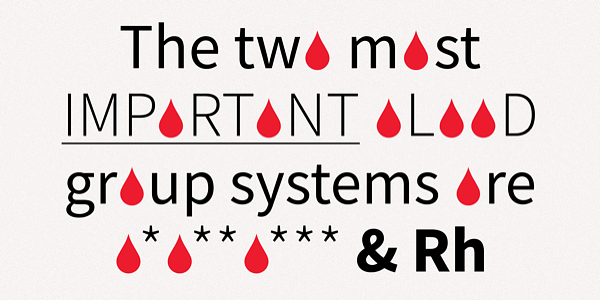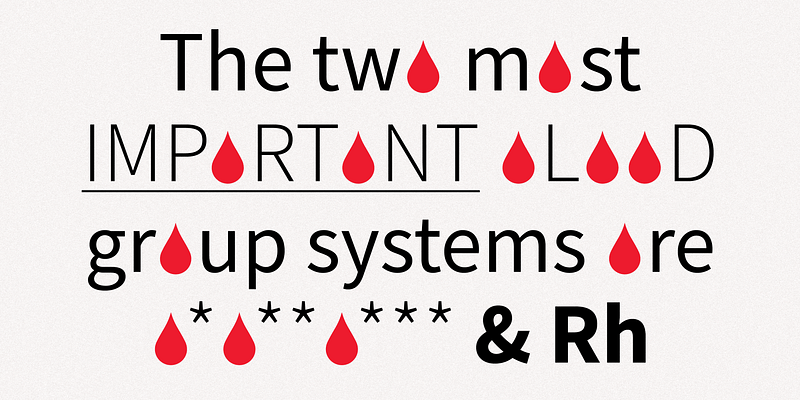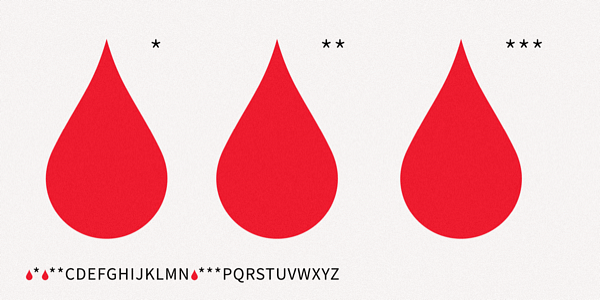
This font symbolizes the importance of A, B and O blood types missing by replacing those letters in the typeface with a blood drop. Adobe and American Red Cross collaborated to create this exclusive font for the Missing Types campaign in June 2019.